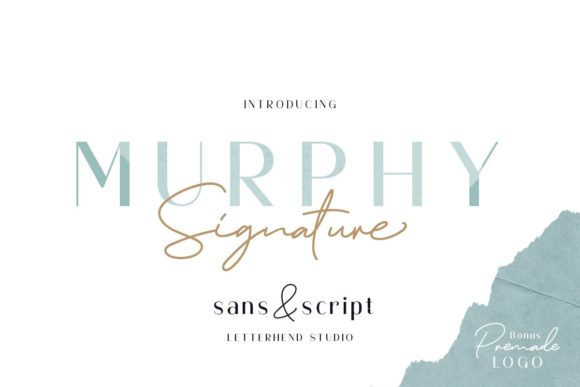
Behold Murphy Font Duo: A Serendipitous Fusion of Script and Sans Elegance
Welcome to the world of Murphy Font Duo, a breathtaking collection that weaves together the allure of enchanting script with the crisp sophistication of sans serif. This mesmerizing font duo is the brainchild of Letterhend, a visionary design studio renowned for their artistry and typographic expertise.
Prepare to be captivated by Murphy Script, a font that dances across the page with its flowing curves and graceful swashes. Its elegant strokes evoke a sense of timeless beauty, reminiscent of handwritten love letters and heartfelt memoirs. Let your words take on a life of their own as Murphy Script transforms them into visual poetry.
Complementing the script's allure is Murphy Sans, a font that exudes a clean and contemporary aesthetic. Its sharp lines and geometric forms create a striking contrast, adding a touch of modernity to your designs. Together, these two fonts form an irresistible duo, effortlessly adaptable to a wide range of projects.
Unleash your creativity and explore endless possibilities with Murphy Font Duo. Craft stunning logos that command attention, design eye-catching social media graphics that captivate your audience, and create marketing materials that leave a lasting impression. Let Murphy Font Duo elevate your branding to new heights, making your message resonate with elegance and impact.
Delve into the world of Murphy Font Duo and discover a treasure trove of design opportunities. Its script and sans styles harmoniously intertwine, providing you with the versatility to craft cohesive designs that exude both charm and sophistication. Whether you're a seasoned designer or just starting your creative journey, Murphy Font Duo is your perfect companion, guiding you towards typographic excellence.
Fall in love with the captivating beauty of Murphy Font Duo. Let its script and sans styles dance together in your designs, creating visual masterpieces that will leave your audience spellbound. Embrace the versatility of this font duo and embark on a creative adventure that knows no bounds.